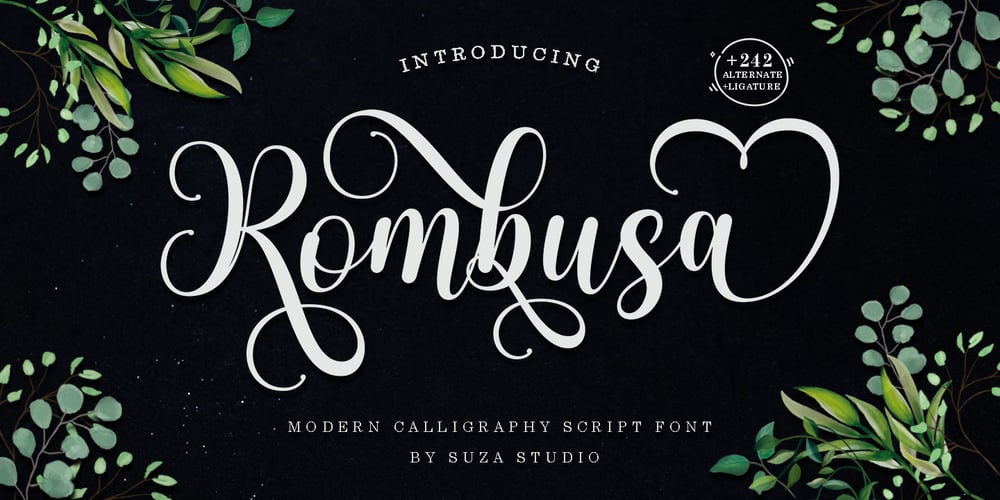
Rombusa
Rombusa font
Rombusa Font Family was designed by Zikrillah and published by Suza Studio. Rombusa contains 1 styles and family package options. I am proud to introduce the new Rombusa Font!This is a unique and fun calligraphy model with feminine and elegant letters, specially made for business cards, wedding events, posters, books, magazines, fashion, etc.Feature; • Full set of uppercase, lowercase letters • 428+ glyphs and 237 alternate characters • Characters with accents • Multiple Languages Supports • PUA encodedThis kind of Rombusa has become a work of true love, making it heartwarming and delightful.I can’t wait to see what you do with Rombusa! Feel free to use the #Suza Studio tag and the #Rombusa font to show what you’ve been up to, I really hope you enjoy it!Thank You!